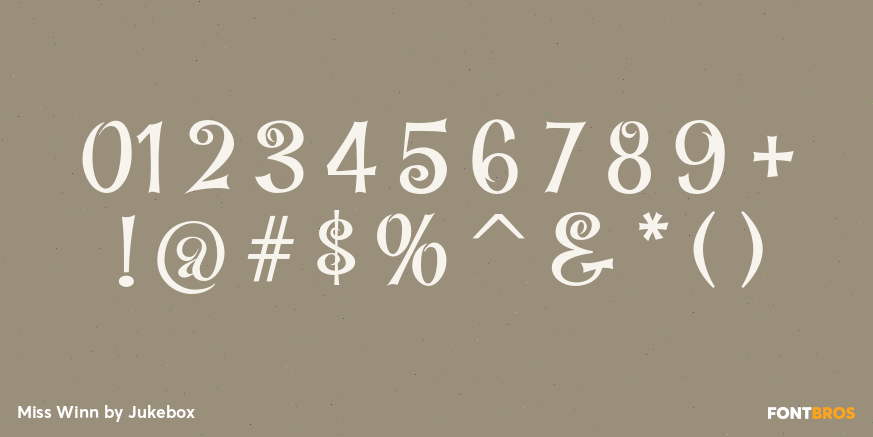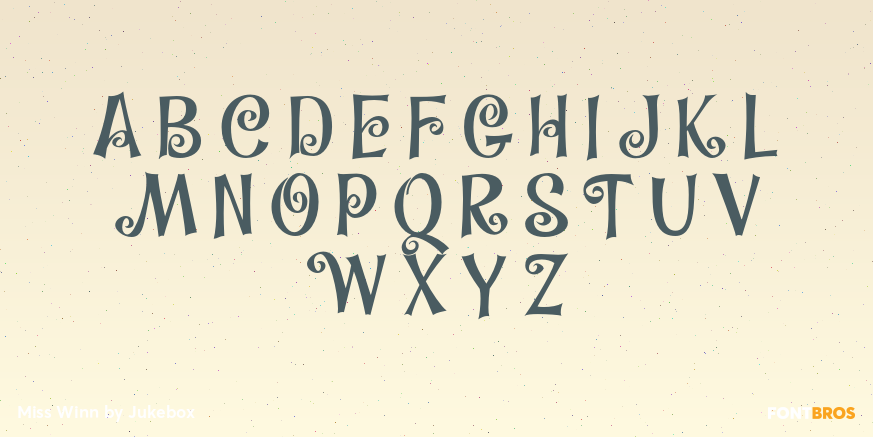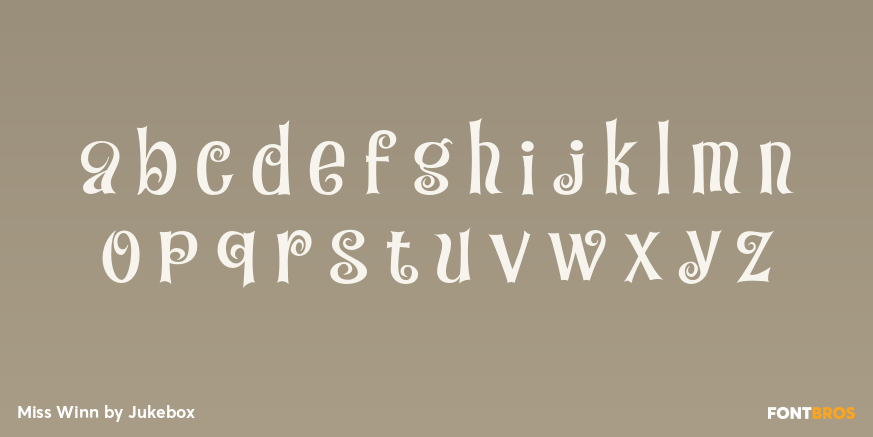
Miss Winn
Font Family by Jukebox
Miss Winn is another Jukebox font inspired by the work of the late sign painter Mike Stevens. This fun, exuberant font has a set of over 150 alternate ligatures that gives the typeface a more hand lettered feel when used. They are found under the Discretionary Ligatures OT feature or can be put in from the Glyph Palette. Miss Winn is done in the style of the free flowing, curvy fonts popular in the 1960s and is named after a dear friend of mine.